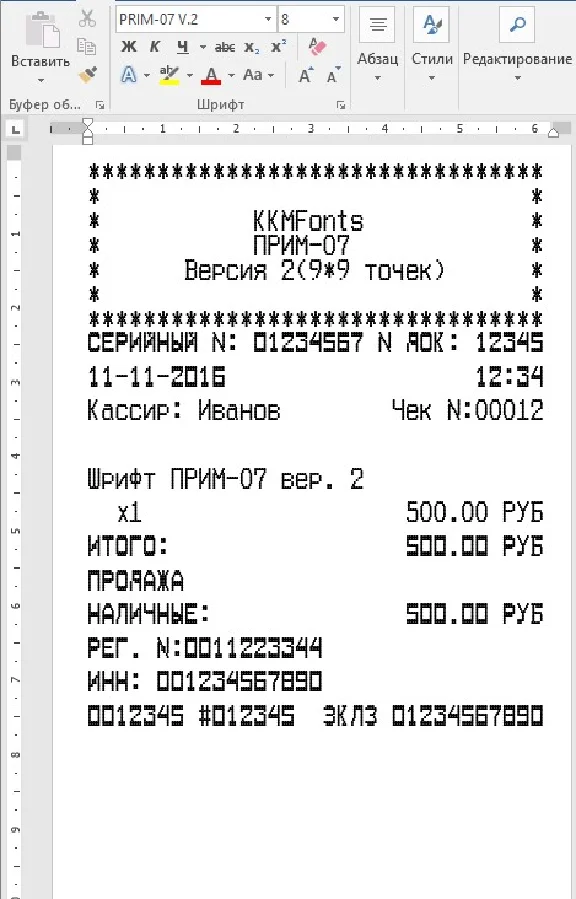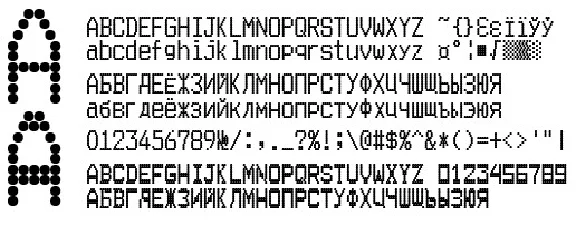
Cash register font PRIM-07 version 2(9x9 matrix) in TTF format (Russian and English letters) for use in Microsoft Word. The archive is a standard and bold fonts in TTF format and check pattern. You just have to install the fonts in the system (usually C: \ WINDOWS \ Fonts), open the template and start editing.